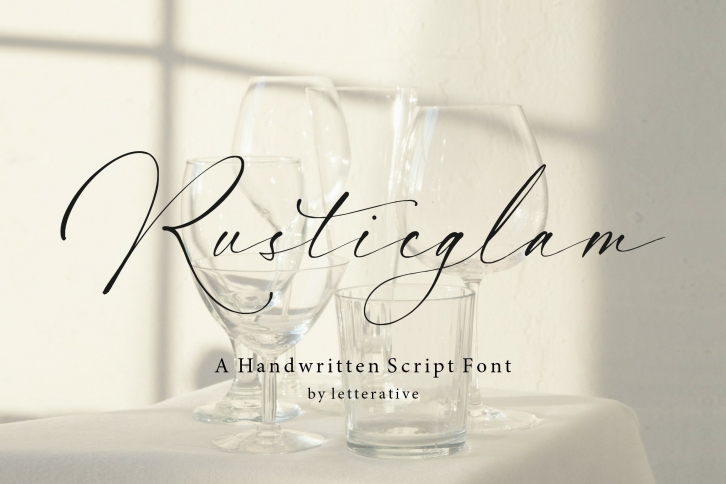
Rusticglam Handwritten Script is a gorgeous font that was realeased on July 4, 2022. The font can be used in many style contexts and design environments. Perfect for invitations, magazines, websites, logos, and more! It was designed by Letterative Studio and the file size is 18.90 MB. Thanks for checking out this font!